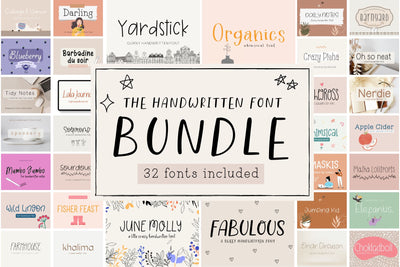
The Handwritten Font Bundle
This bundle gathers 32 stunning fonts for you to use in your upcoming projects. Perfect for digital notes, planners, logo, web design, notebooks, journals, labels, blogs, quotes, greeting cards, tea towels, apparel, pillows, mugs, toys, posters, baby clothing, picture books and so much more... basically anything that requires a handwritten look! 😍